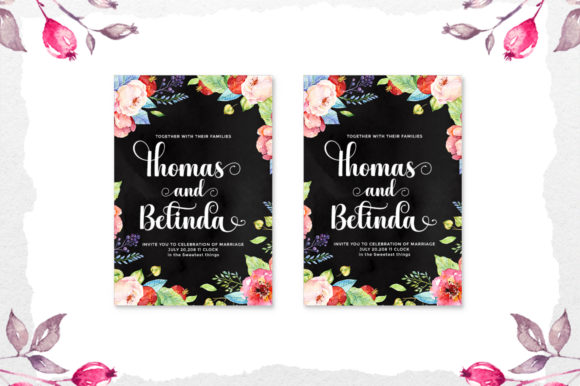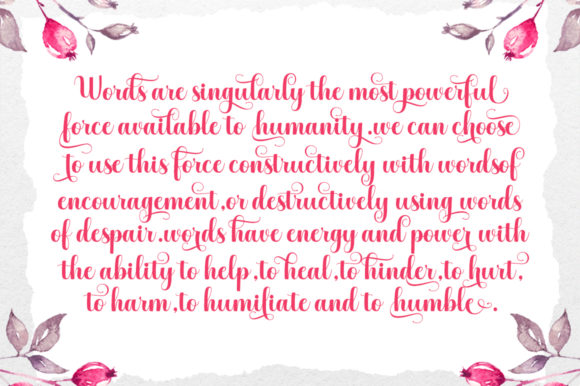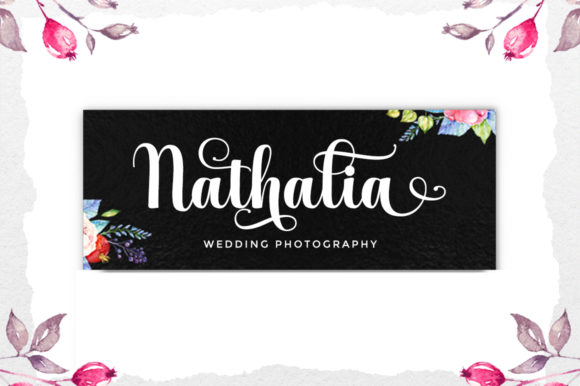
Introduction to Hello Georgina Font
Hello Georgina is a lovely and jolly duo font (script and sans serif).
It looks stunning on wedding invitations, thank you cards, quotes, greeting cards, logos, business cards and every other design which needs a handwritten touch It features a varying baseline, smooth lines, gorgeous glyphs and stunning alternates.